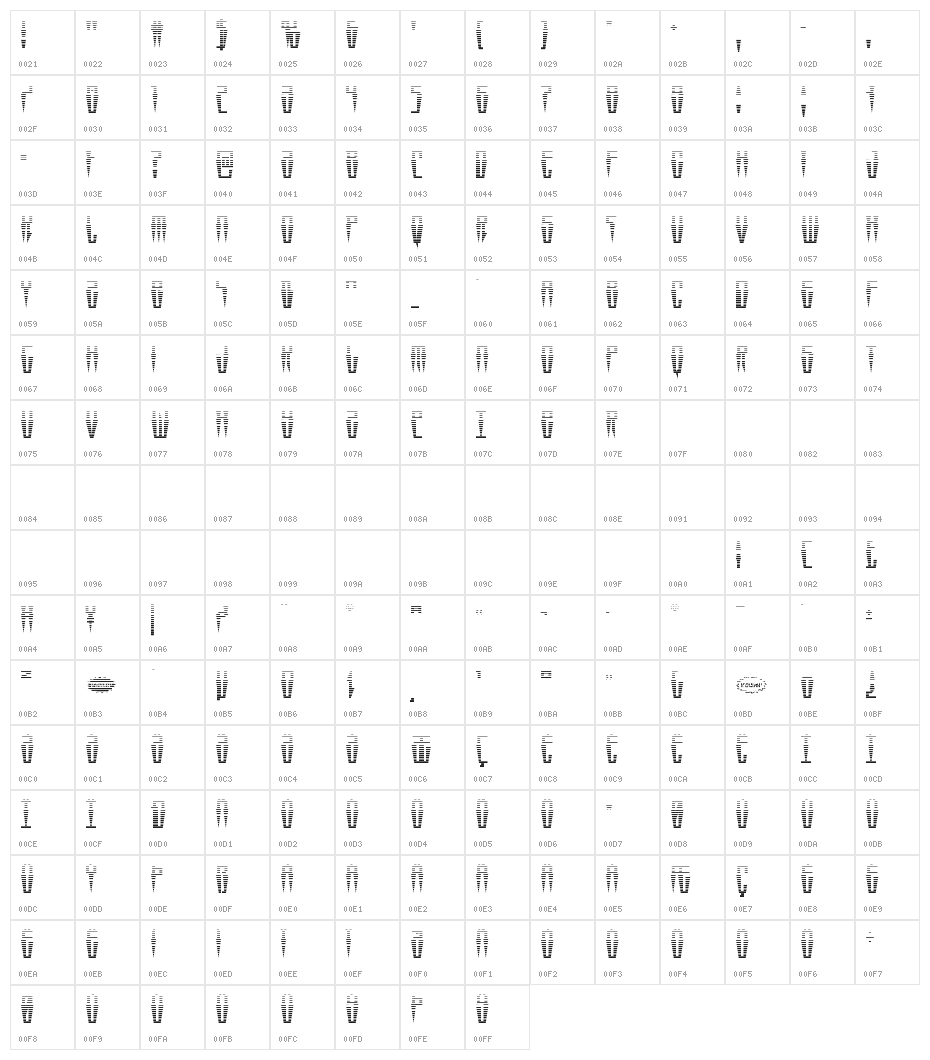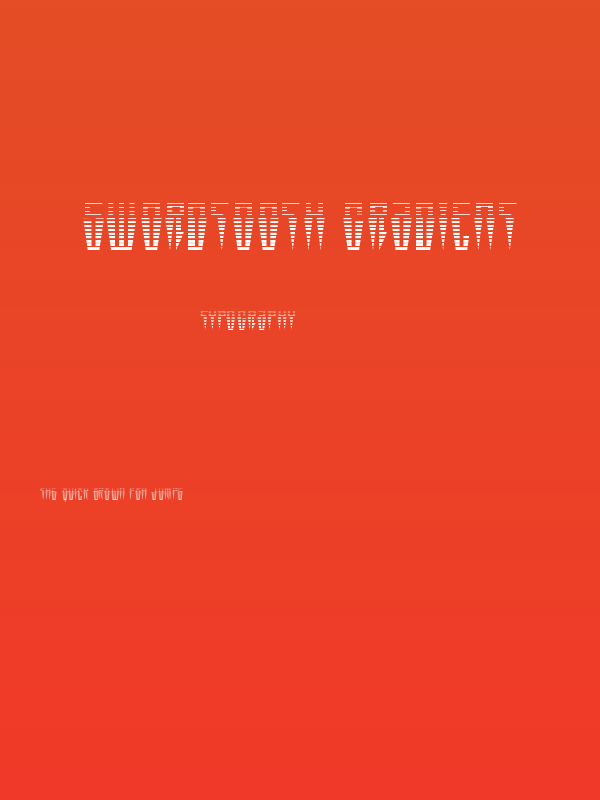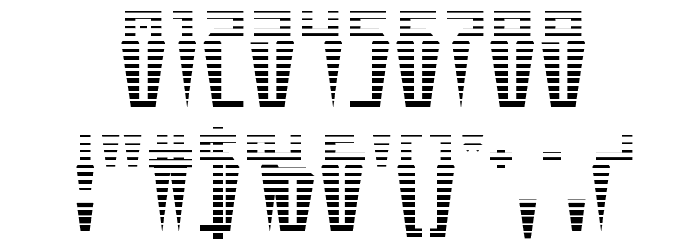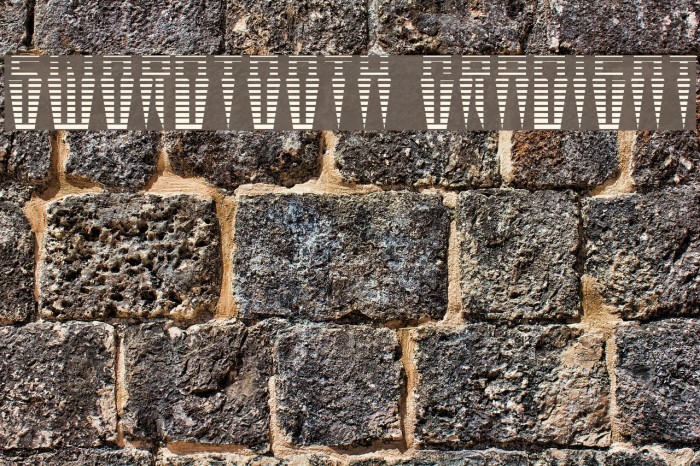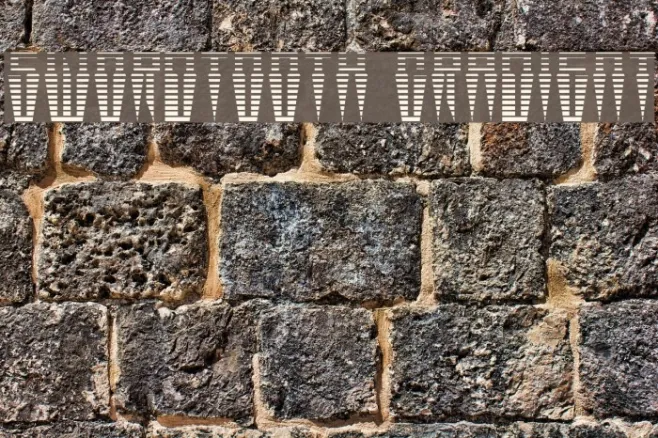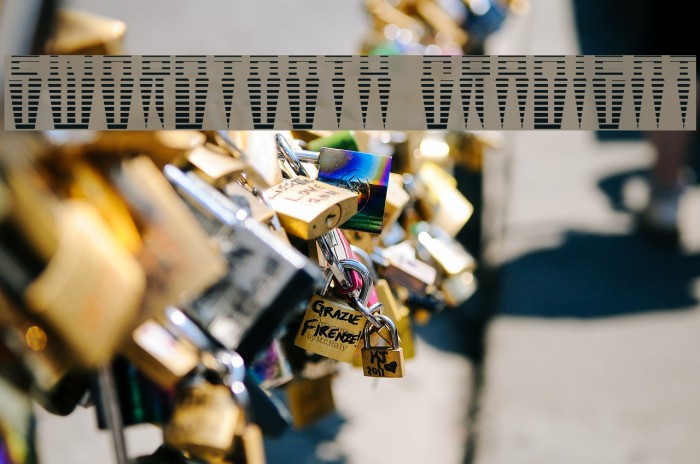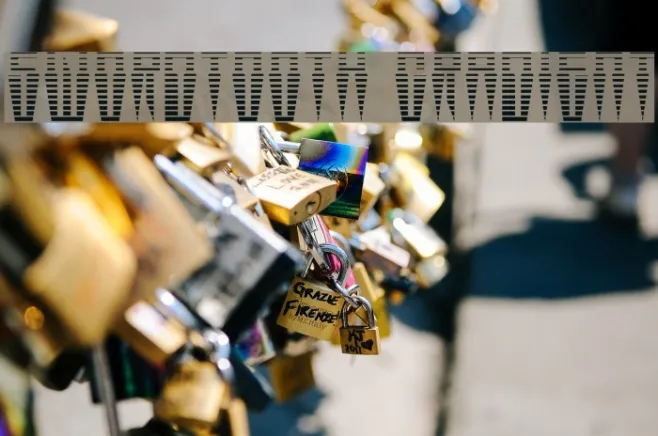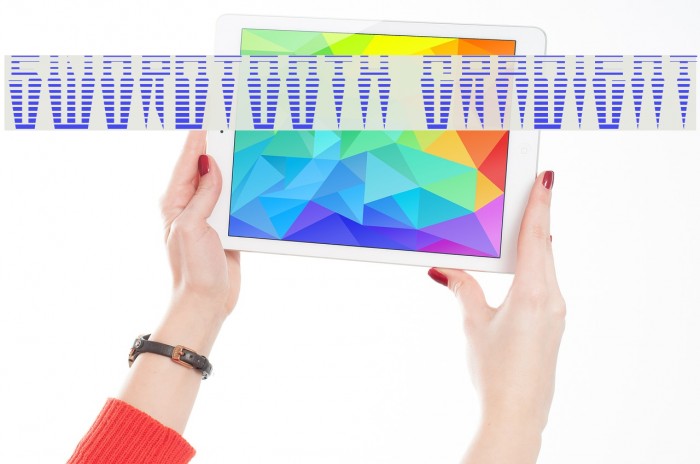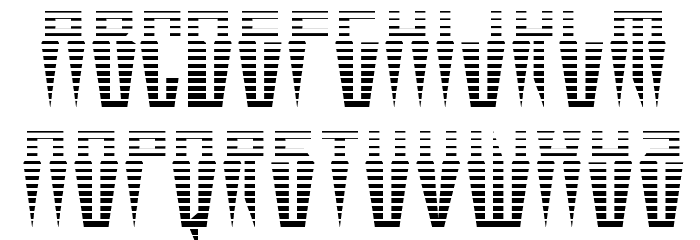
Swordtooth Gradient Font
Swordtooth Gradient Description
This font features a striking, modern design with a unique gradient effect that creates a sense of depth and movement. The characters are constructed with horizontal lines that taper into sharp points, reminiscent of a sword's edge. This design choice gives the font a dynamic and aggressive appearance, making it ideal for attention-grabbing headlines or logos. The uppercase and lowercase letters maintain a consistent style, with the numbers and special characters seamlessly integrating into the overall aesthetic. The font's bold and decorative nature makes it stand out, while the gradient effect adds a layer of sophistication.
| Proposed Projects | Ideal for branding, posters, video game titles, and any project requiring a bold, modern aesthetic. |